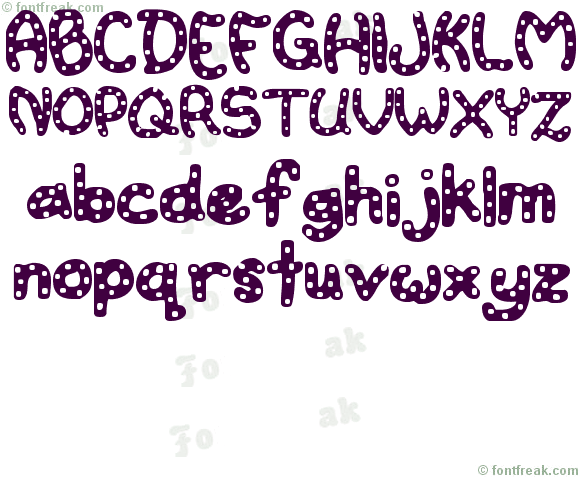
Water Toy
About Water Toy
The Water Toy font by Heather Daniel is a captivating display typeface that combines playful elements with an engaging style. Characterized by its whimsical, rounded letters adorned with fun, polka-dot accents, this font falls into the decorative category. Its unique design features a consistent stroke weight that gives a bubbly, friendly appearance while maintaining a moderate level of contrast that enhances readability. The spacing between characters is well-balanced, allowing for easy legibility, even in larger text sizes.
Water Toy is an excellent choice for a variety of creative projects. It works wonderfully for children's book covers, where its playful nature can attract young readers. Additionally, it's an ideal option for birthday party invitations, lending a festive vibe to any celebration. Restaurant menus targeting a family-friendly audience can also benefit from the font's cheerful aesthetic, making dishes seem more inviting. Graphic designers will find this font useful for creating eye-catching posters or flyers for events aimed at a younger demographic, such as summer camps or toy stores.
The target audience for the Water Toy font includes graphic designers, small business owners, and content creators looking to infuse their projects with a sense of fun and whimsy. This font is particularly suited for those who wish to create a lighthearted atmosphere in their work.
What sets the Water Toy font apart is its ability to evoke a sense of nostalgia and joy. It embodies creativity and playfulness, making it a fantastic choice for designs that aim to capture attention and spark imagination. With the Water Toy font free download available, it's accessible for anyone looking to add a distinctive touch to their projects.